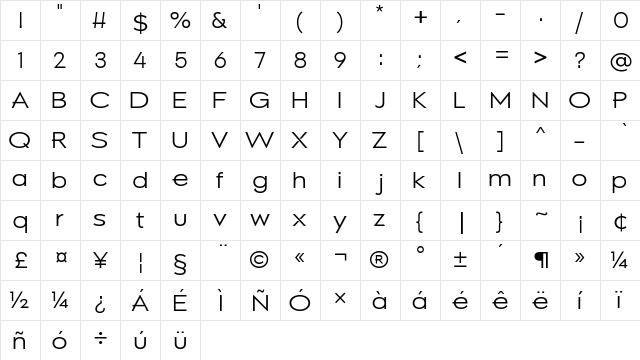
Logoplexi Regular
| Foundry | MOMI |
| Designer | Matt Chansky |
Design Context for Logoplexi Typeface
Logoplexi takes a measured approach to typography — its balanced proportions and neutral character make it a reliable workhorse for both digital and print work.